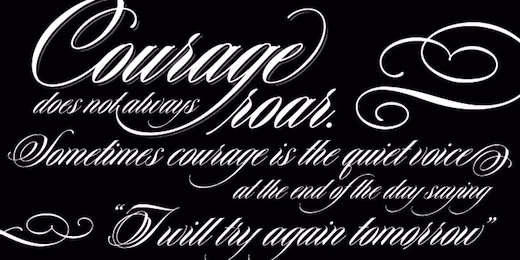
Search for “tattoo” on a site like Dafont and the odds are you wont find the most elegant of typefaces. Especially when it comes to edgy script designs, there are a lot of interesting experiments (and god awful mistakes) out there, and this is why so very few of these faces are actually worth keeping in your repertoire.
Keepsake, a typeface recently released by Aerotype, on the other hand, stands out as something you could actually use. It’s an impressive tattoo-inspired script face with five members (Regular, Open, Fill, Drop & Dropshadow) that combine with highly varied results.
Designer Stephen Miggas explains that “Keepsake has evolved considerably over the past few years as I tried to balance the formality of classic penmanship with the edgy look and feel of a script one might find in a tattoo studio.”
More than anything else, though, it feels surprisingly solid. It’s still highly unique and must be used sparingly, but the name Keepsake does it justice. It’s worth keeping around.